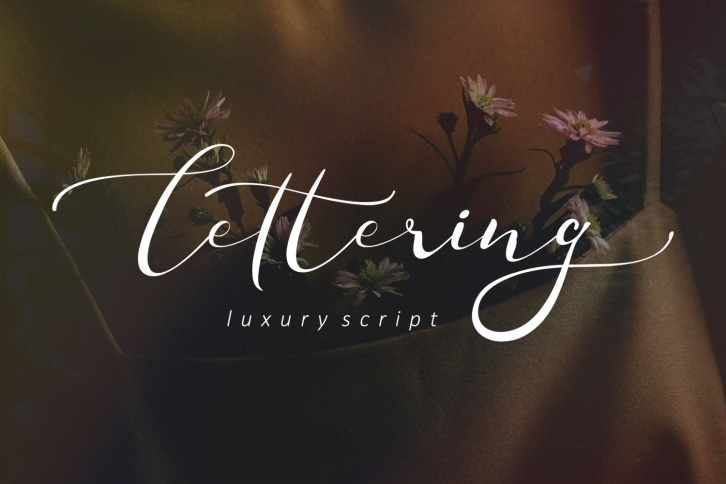
Adonessia Font Download
Adonessia is a trendy and unique font with an authentic style. It was designed by Allmo Studio and it's a great choice for creative people who need such a font. It was released on October 1, 2019 and the file size is 15.53 MB. Adonessia will add an organic vibe to any design idea!